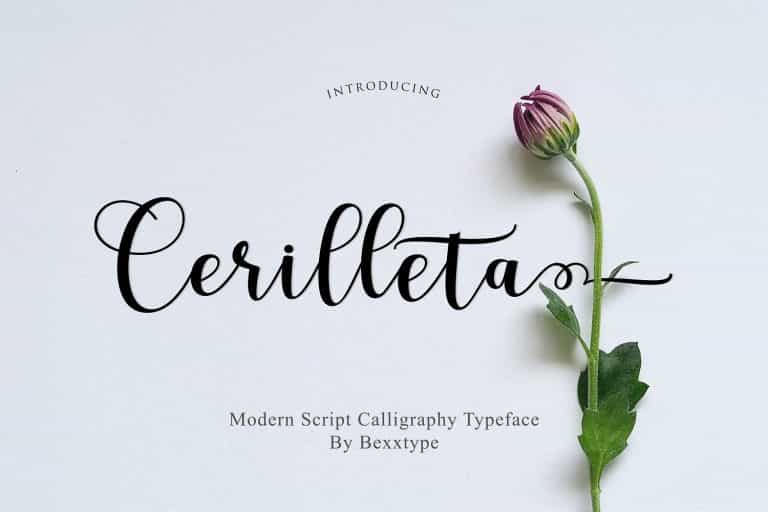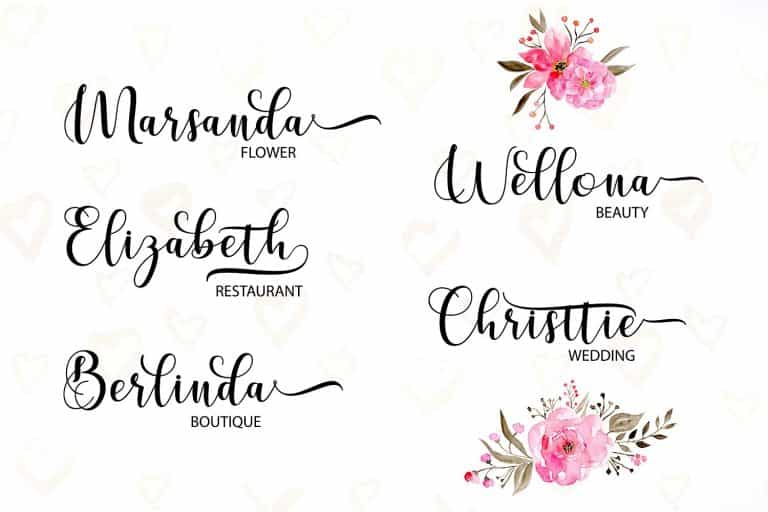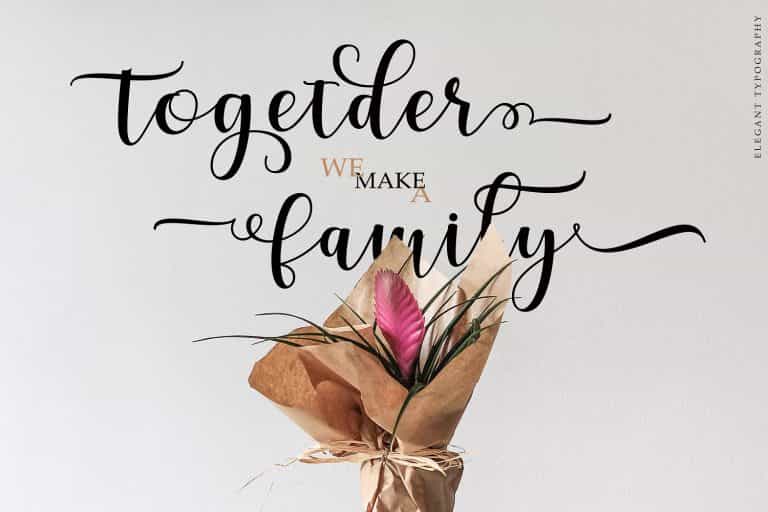
Introducing Cerilleta Font. Cerilleta font introduced a new and fresh modern script accompanied by handmade calligraphy style, decorative characters and dancing baseline!Cerilleta Font is applicable for any design like branding projects, logo, wedding designs, social media posts, ads, product packaging and other kinds of project that need the touch of handwriting.